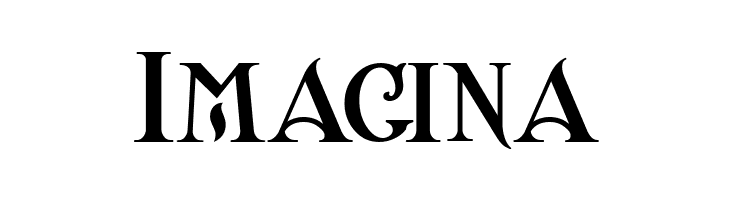
Leather Jacket Regular Font
- Font: Leather Jacket Regular
A bold, decorative serif font with artistic flair and intricate details.
( Fonts by ARRF Designs )